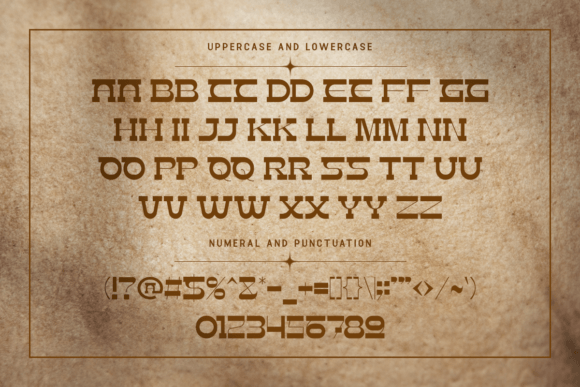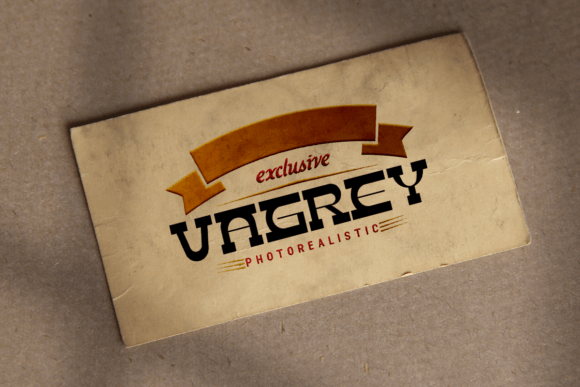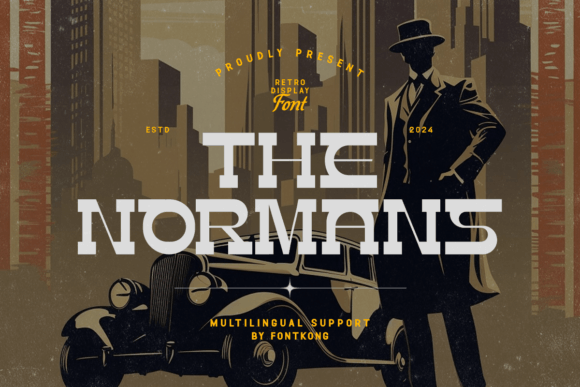
The Normans Font
The Normans Font is a bold and eye-catching typeface designed to make a statement. With its strong and dynamic character, this font is perfect for headlines, posters, logos, and branding projects that need to grab attention. Normans combines modern aesthetics with a unique style, making it ideal for creative professionals looking to add a distinctive edge to their work. Its versatility ensures it shines in both digital and print media, offering a powerful visual impact that stands out in any design.